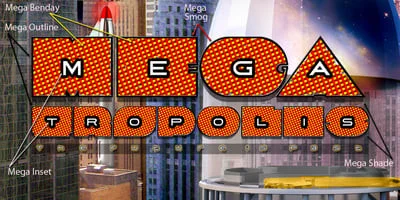
Megatropolis Font
Megatropolis Font is ideal for futuristic city planning materials, sci-fi movie posters, urban development projects, smart city technology branding, metropolis tourism campaigns, cyberpunk gaming interfaces, modern architecture presentations, tech startup identities, urban lifestyle magazines, and forward-thinking municipal communications.
What makes Megatropolis Font exciting is its commanding metropolitan presence and futuristic urban energy that captures the pulse of tomorrow's mega-cities with technological sophistication and architectural grandeur. This powerful typeface embodies the essence of urban evolution with its bold geometric structure and skyscraper-inspired proportions that evoke towering glass buildings, bustling city streets, and the infinite possibilities of human civilization at its peak. The font's megalopolis character creates an immediate impression of progress, innovation, and the unstoppable force of urban development.
Megatropolis Font family includes regular weight with architecturally crafted character designs featuring metropolitan proportions and futuristic styling. The typeface maintains excellent impact and readability while showcasing its distinctive urban personality through boldly designed letterforms that seem constructed from steel and glass like the greatest architectural achievements of human ingenuity.
Urban planners consistently choose Megatropolis Font for projects requiring authentic metropolitan appeal and futuristic credibility. This remarkable typeface brings the power of mega-city vision to brand communications, combining architectural precision with urban energy to create transformative city experiences. The powerfully designed characters ensure maximum metropolitan impact across all applications, making it essential for city governments, urban developers, and any organization seeking to communicate the limitless potential and technological advancement that defines tomorrow's great cities through Megatropolis Font.